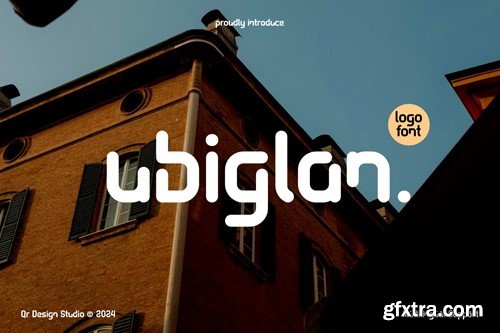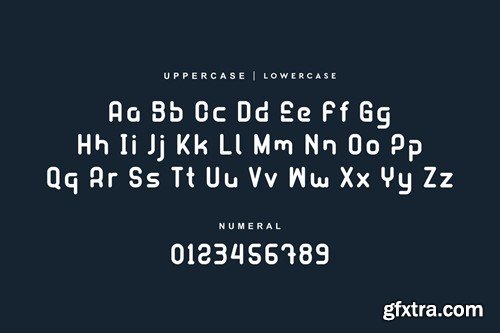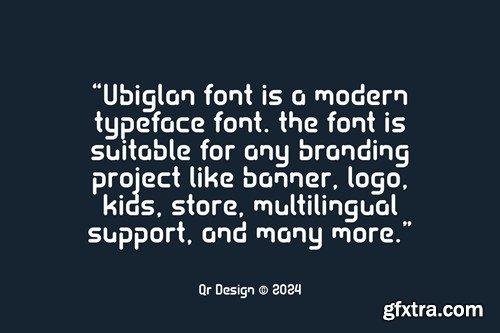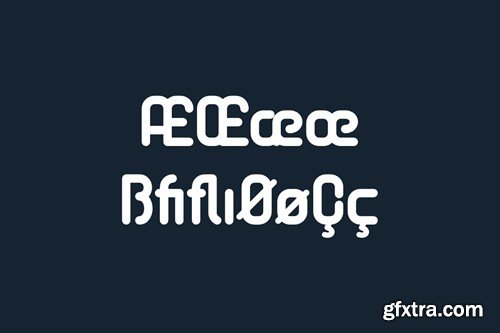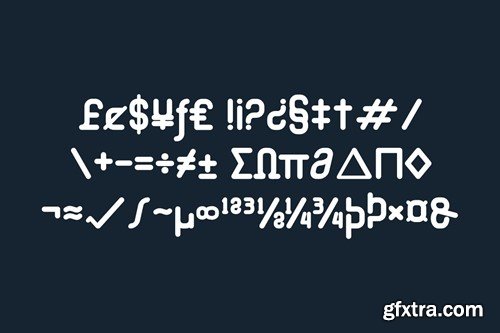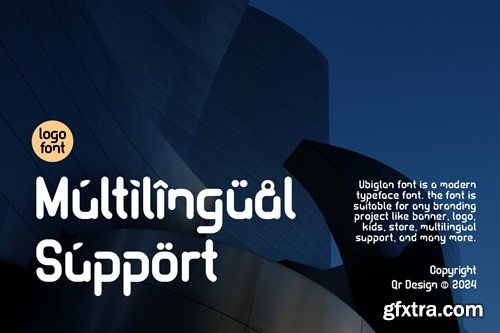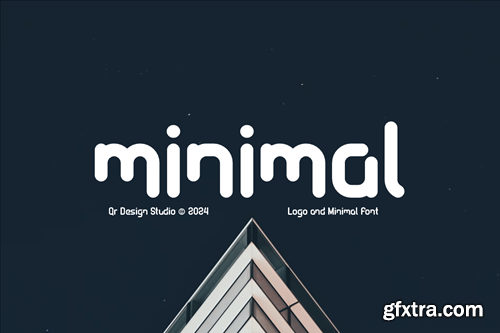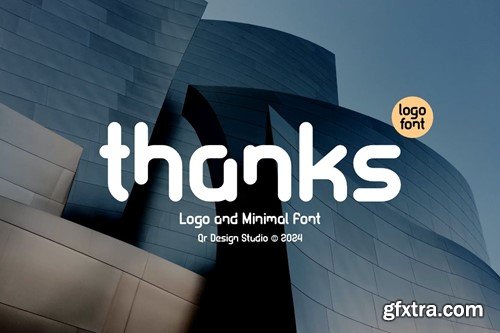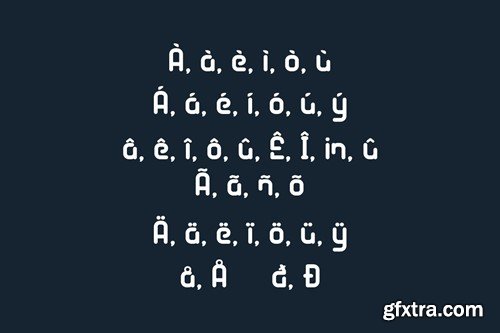
Ubiglan - Sans Modern Logo Font
Ubiglan Font is a sans serif and logo font. The font is suitable for any branding project like stylish, poster, logo, sport, and many more. Outstanding in a wide range of contexts. Included Main Features